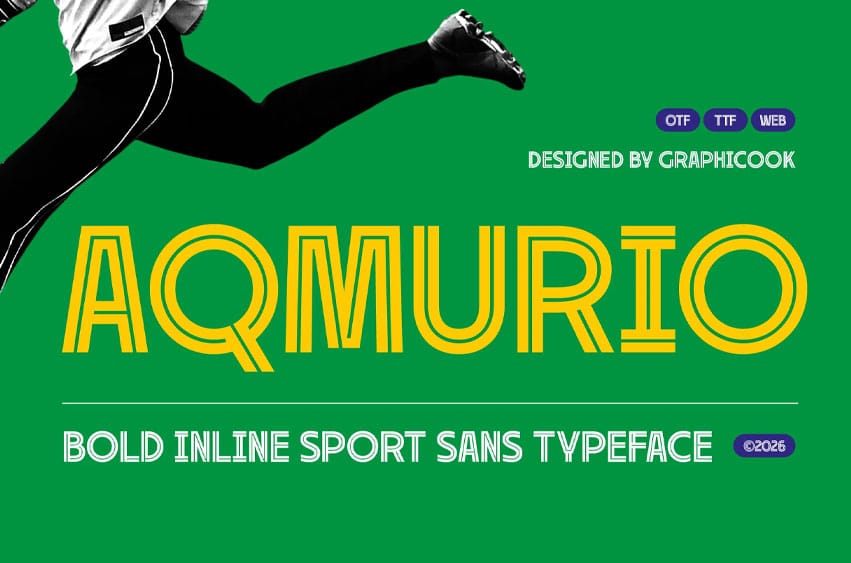
Aqmurio Font is a bold inline sport sans typeface designed to deliver energy, strength, and modern athletic character. Featuring a clean geometric structure combined with striking inline details, Aqmurio creates a dynamic visual rhythm that instantly grabs attention.
It is perfect for headlines, logotypes, magazines, packaging, quotes, movies, games, cover albums, book covers, and flyers, it’s a perfect solution for creating eye-catching designs that stand out in any context.